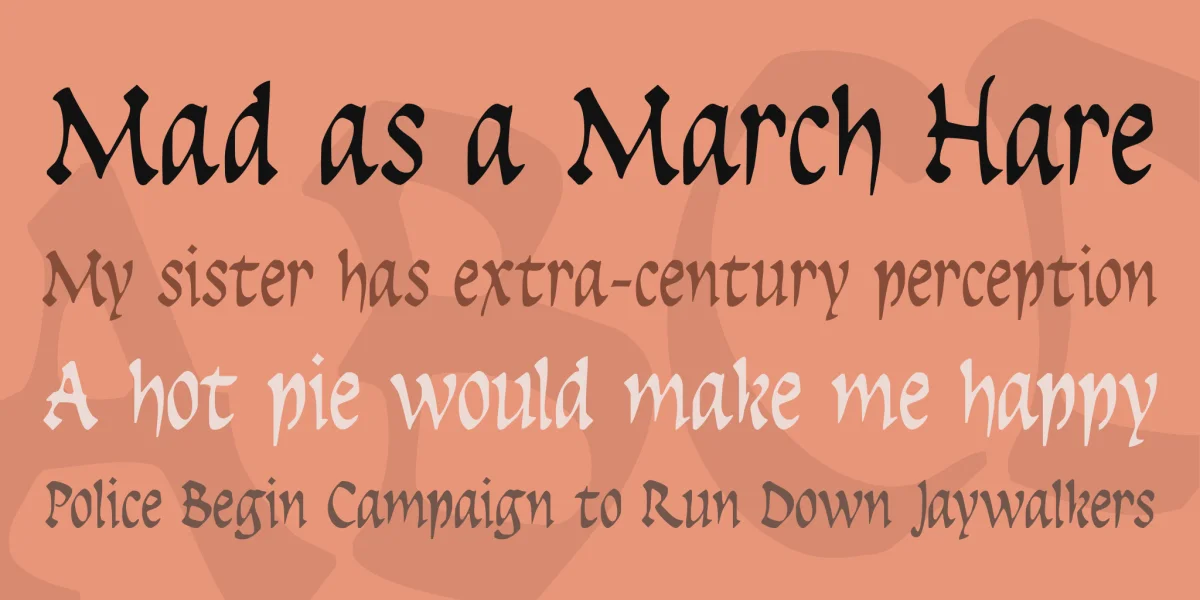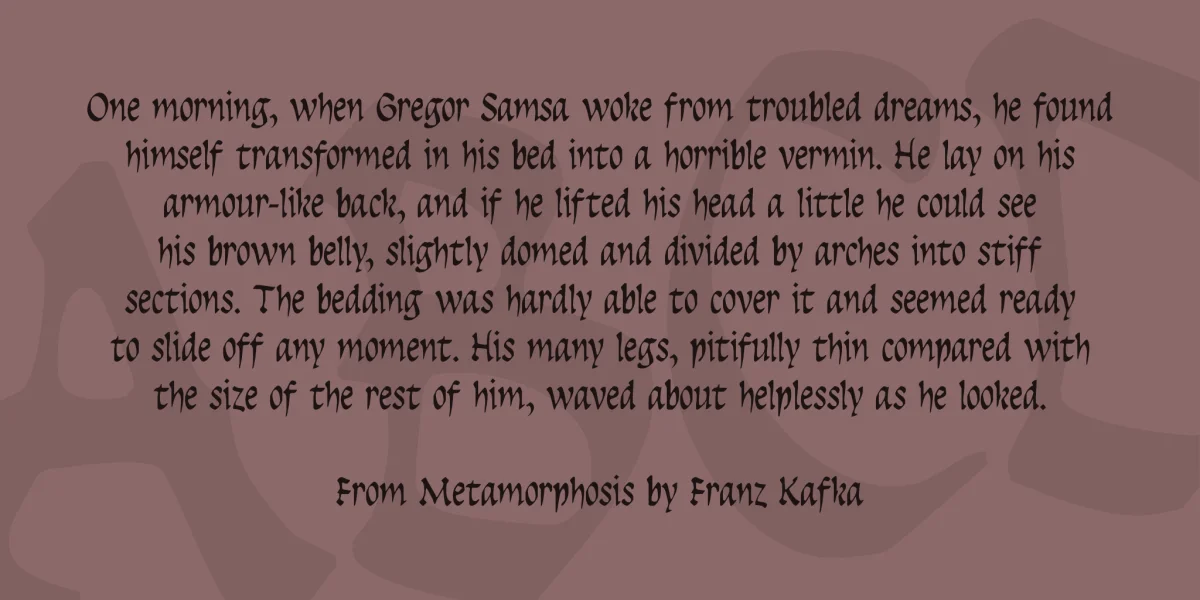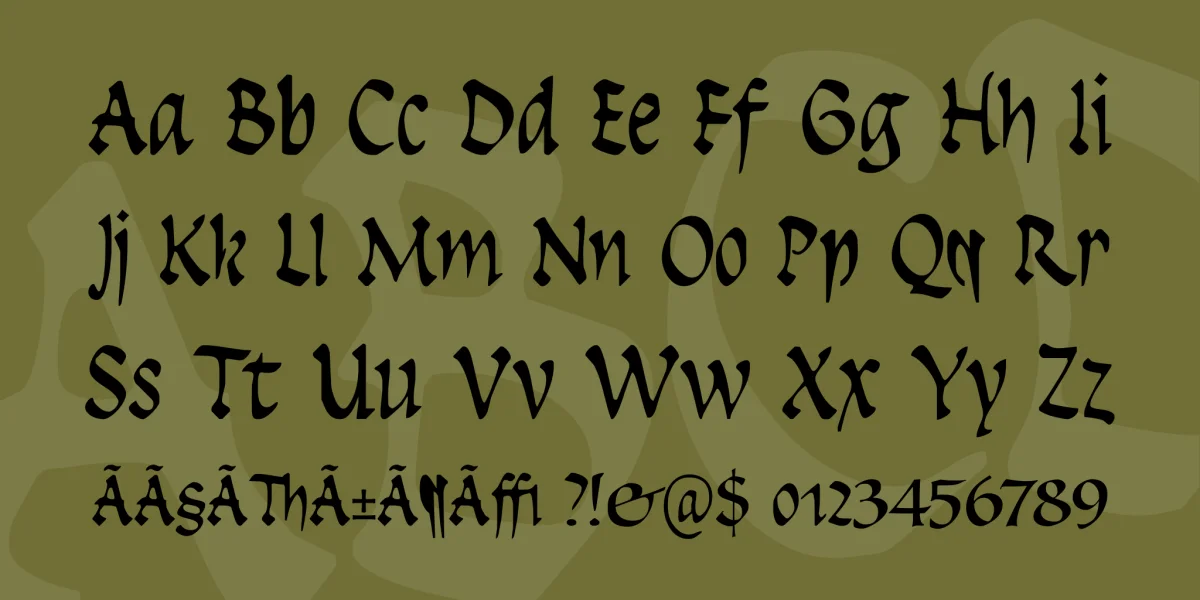
This font is based on post-roman insular latin writing. It is one of the many transliterations that the lab has been offering of late in an attempt to avail a wider range of choices to the international user. This font contains support for Western European, Greek, Cyrillic, Turkish, Baltic, and Central European languages. The concept and design of this font were aided by the following books: Keith Sidwell, Reading Medieval Latin - Hrotswitha, Dulcitius and Paphnutius, ed. Paul Pascal - Waltharius, ed. Gernot Wieland - Leo F. Stelton, Dictionary of Ecclesiastical Latin. Peace.